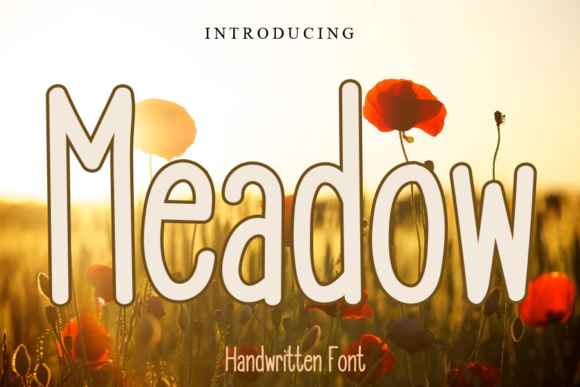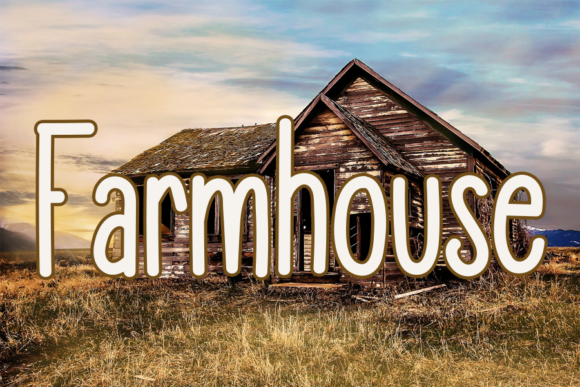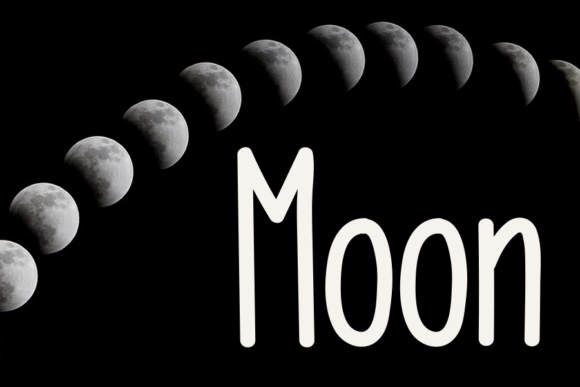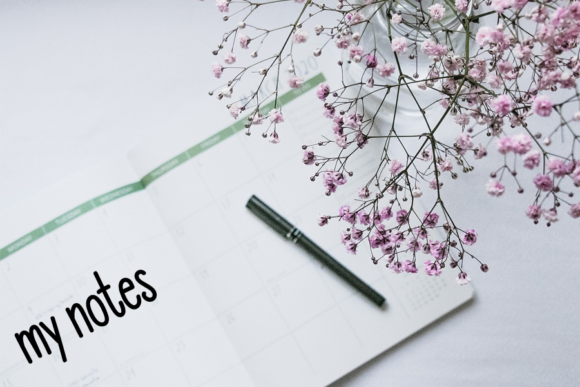
About Meadow Font
Meadow is a delightful and charming handwritten font that brings a touch of sweetness and friendliness to any design. Its natural and unique style sets it apart, making it a versatile choice for a wide range of projects.
With Meadow, your creativity knows no bounds. The font’s playful and organic look makes it a perfect match for various design ideas. Whether you’re working on greeting cards, invitations, social media posts, branding materials, or any other project that needs a touch of warmth and personality, Meadow will deliver.
The handcrafted nature of Meadow gives it an authentic and organic feel. Each letter has its own character and charm, adding a sense of personality and uniqueness to your designs. The natural flow of the strokes creates a sense of movement and liveliness, making Meadow a font that truly comes alive.
From its smooth curves to its slightly irregular lines, Meadow captures the essence of handwritten script fonts. It brings a sense of warmth and friendliness, making it suitable for projects that aim to create a personal connection with the audience. Whether you’re designing for a casual or heartfelt occasion, Meadow will help you convey the right emotions.
The versatility of Meadow makes it compatible with various design styles. Its friendly and approachable nature makes it equally suitable for whimsical and playful designs as well as more refined and elegant layouts. It adapts seamlessly to different themes, ensuring that your designs reflect the desired mood and message.
In summary, Meadow is a sweet and friendly handwritten font that adds a touch of natural beauty and warmth to your designs. With its unique style and versatility, it invites creativity and allows you to explore a wide range of design possibilities. Let your imagination run wild with Meadow and create designs that are truly special.